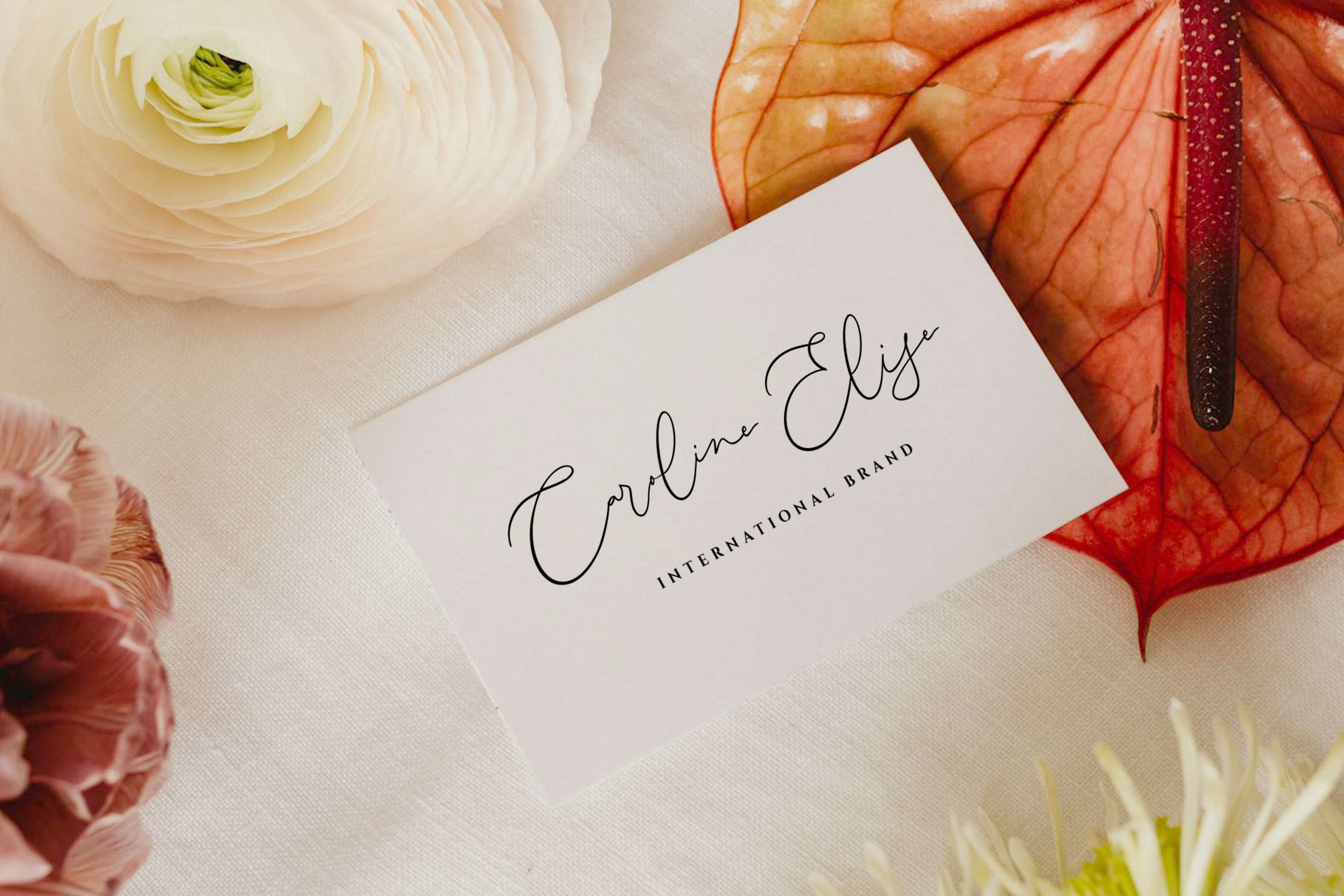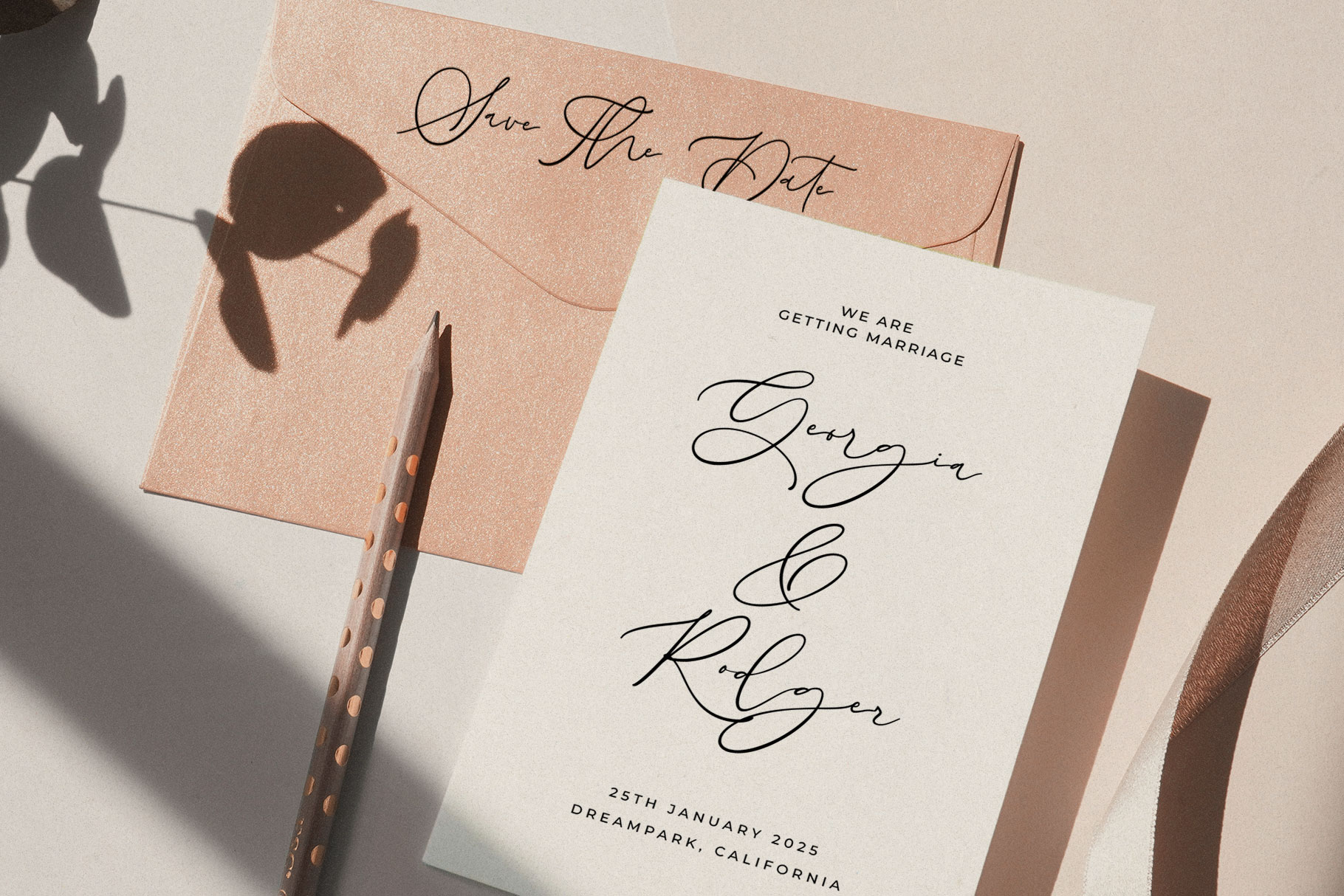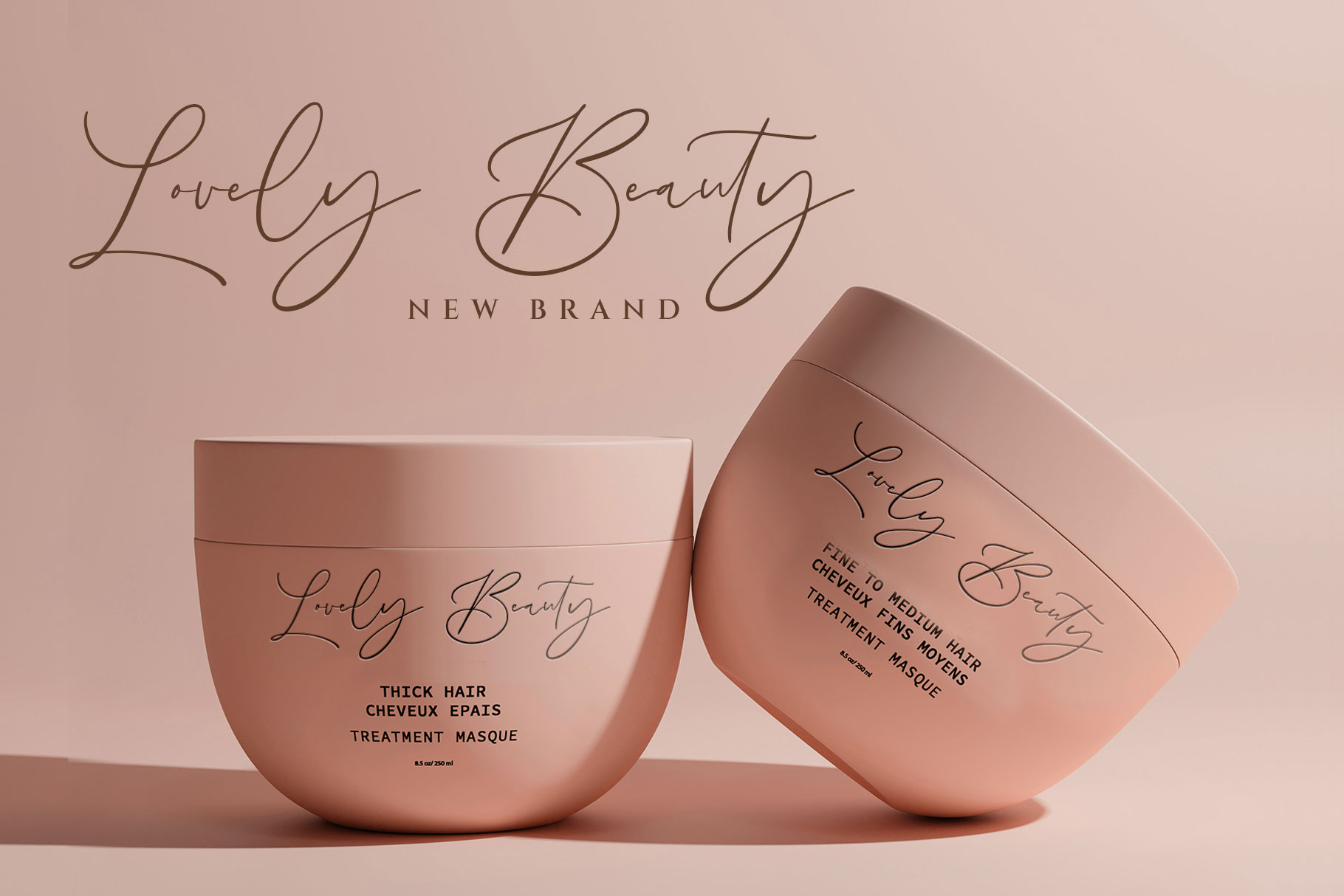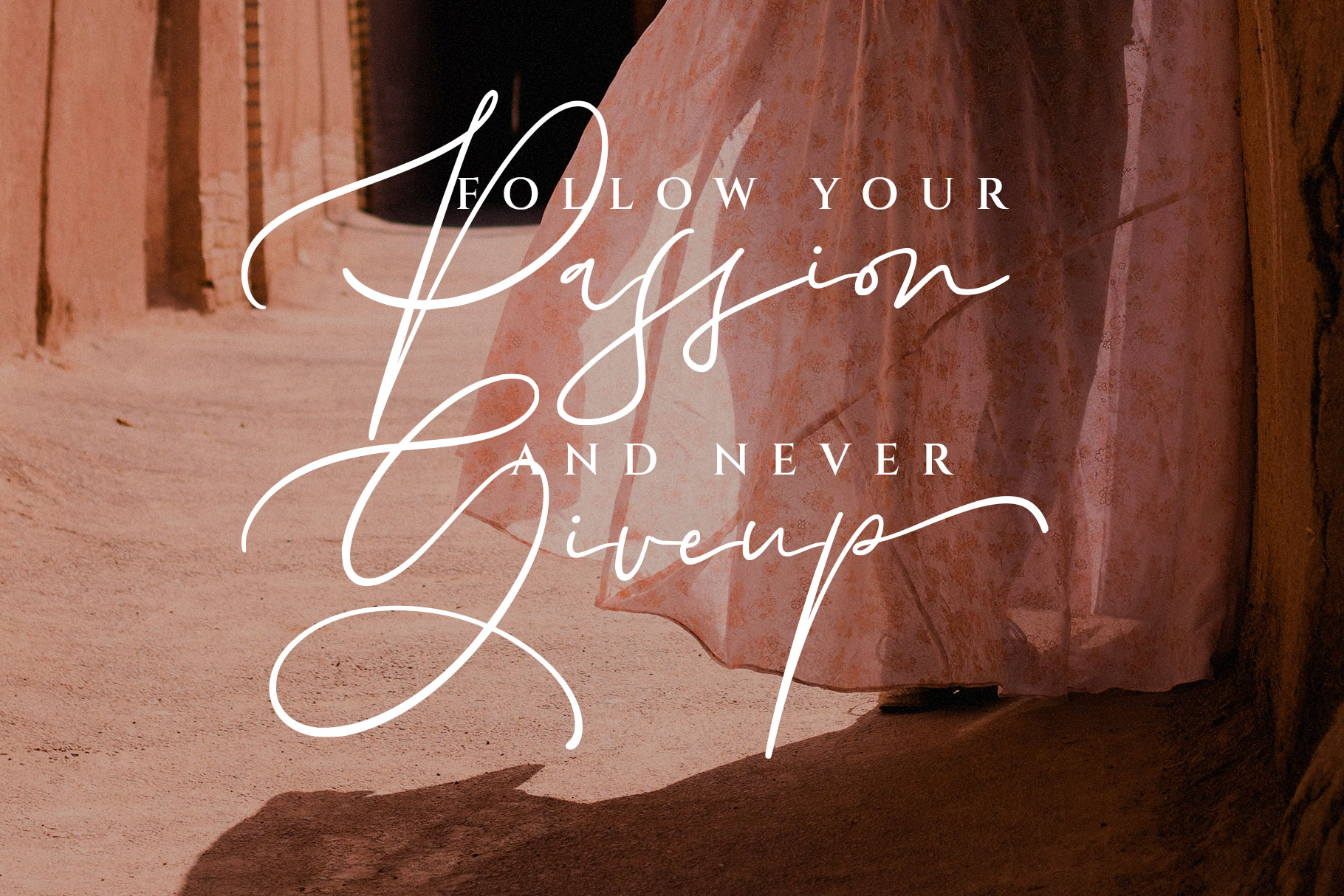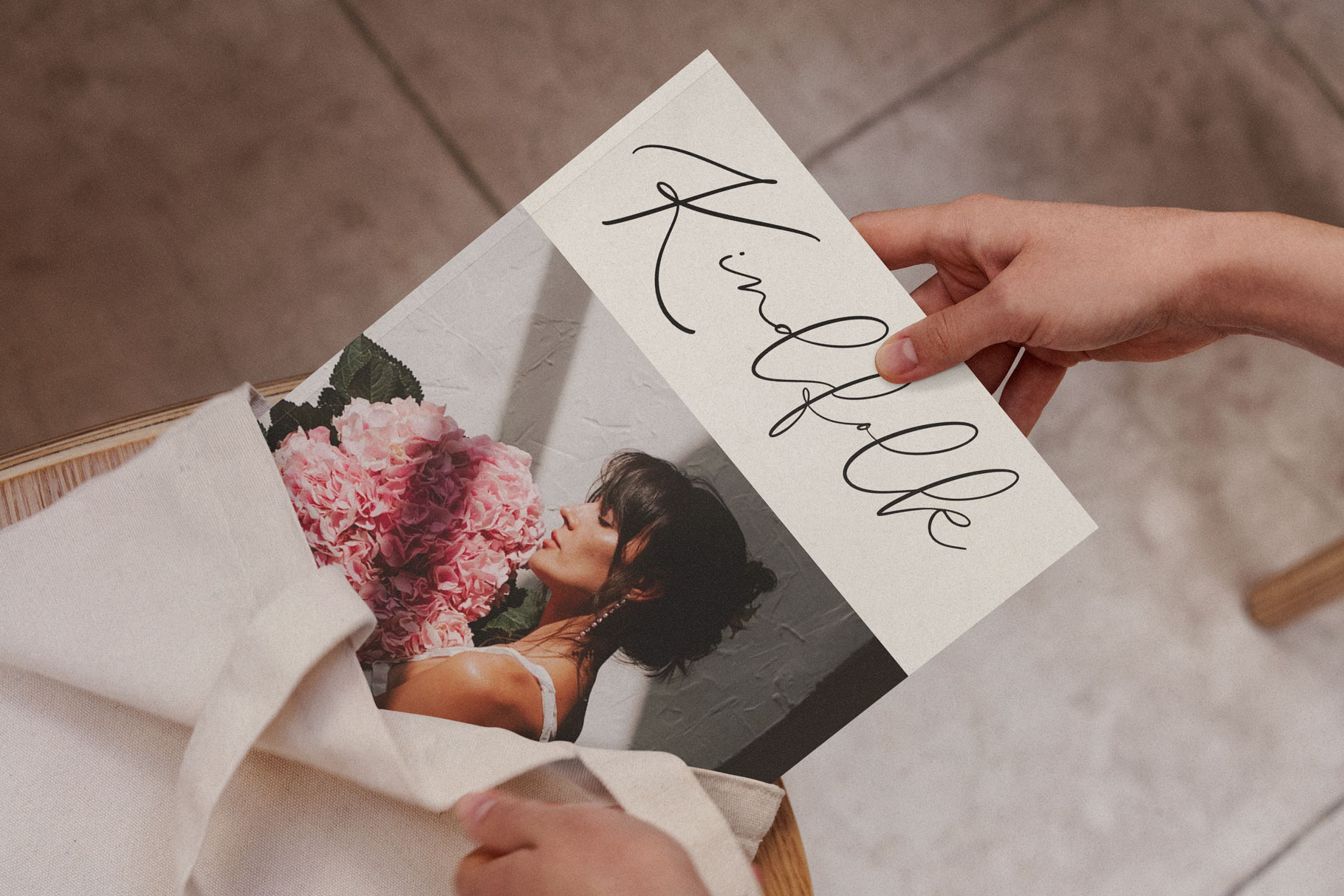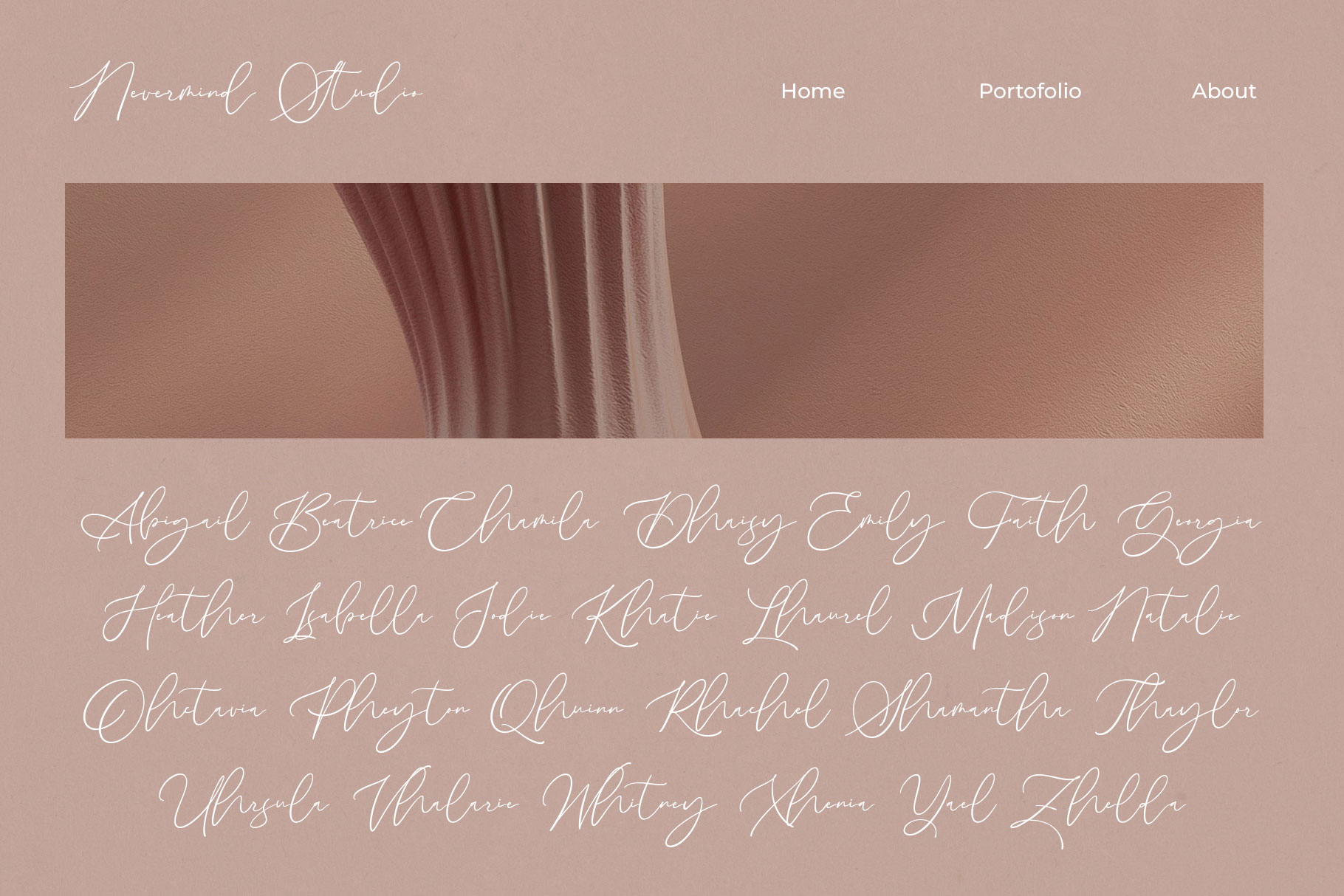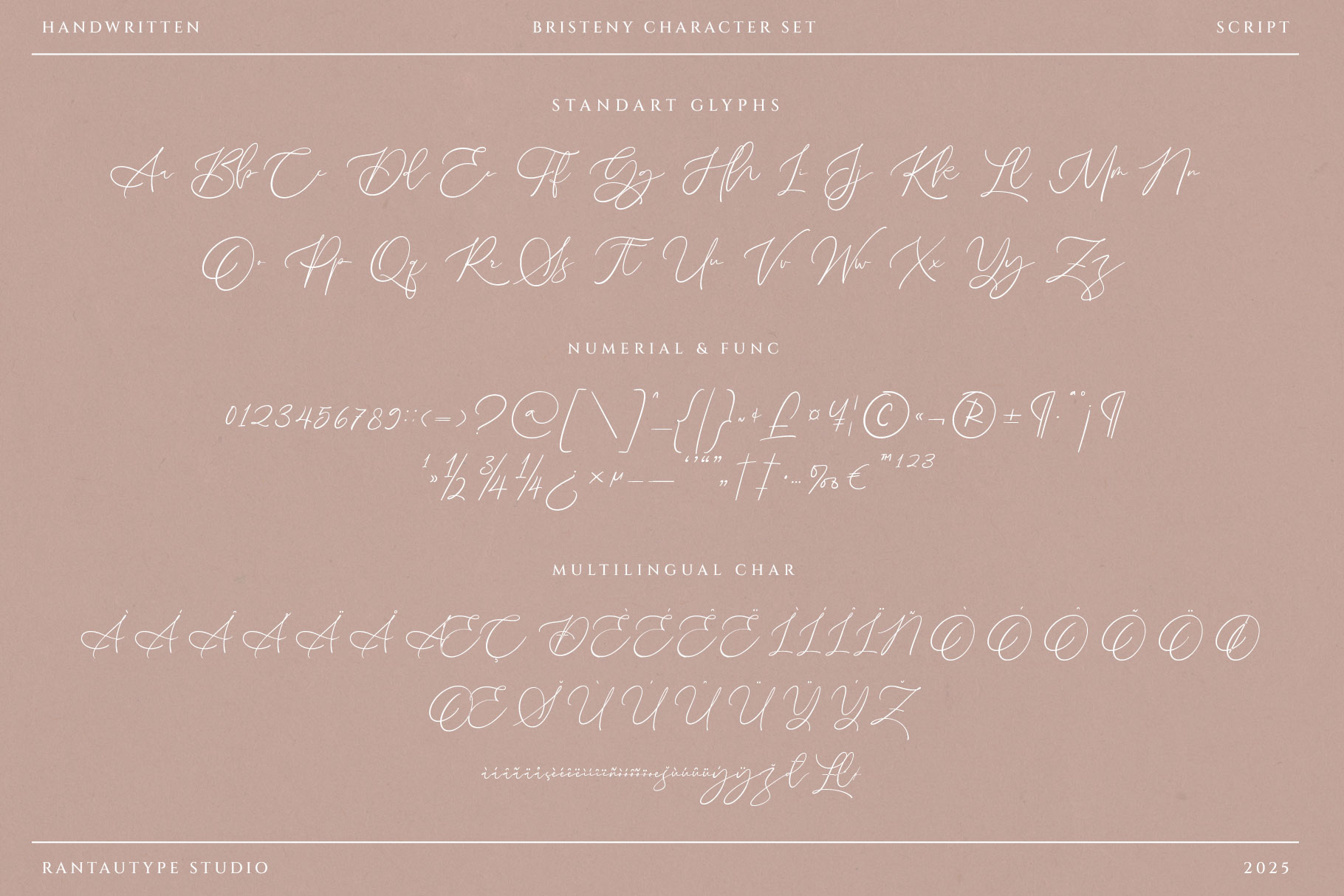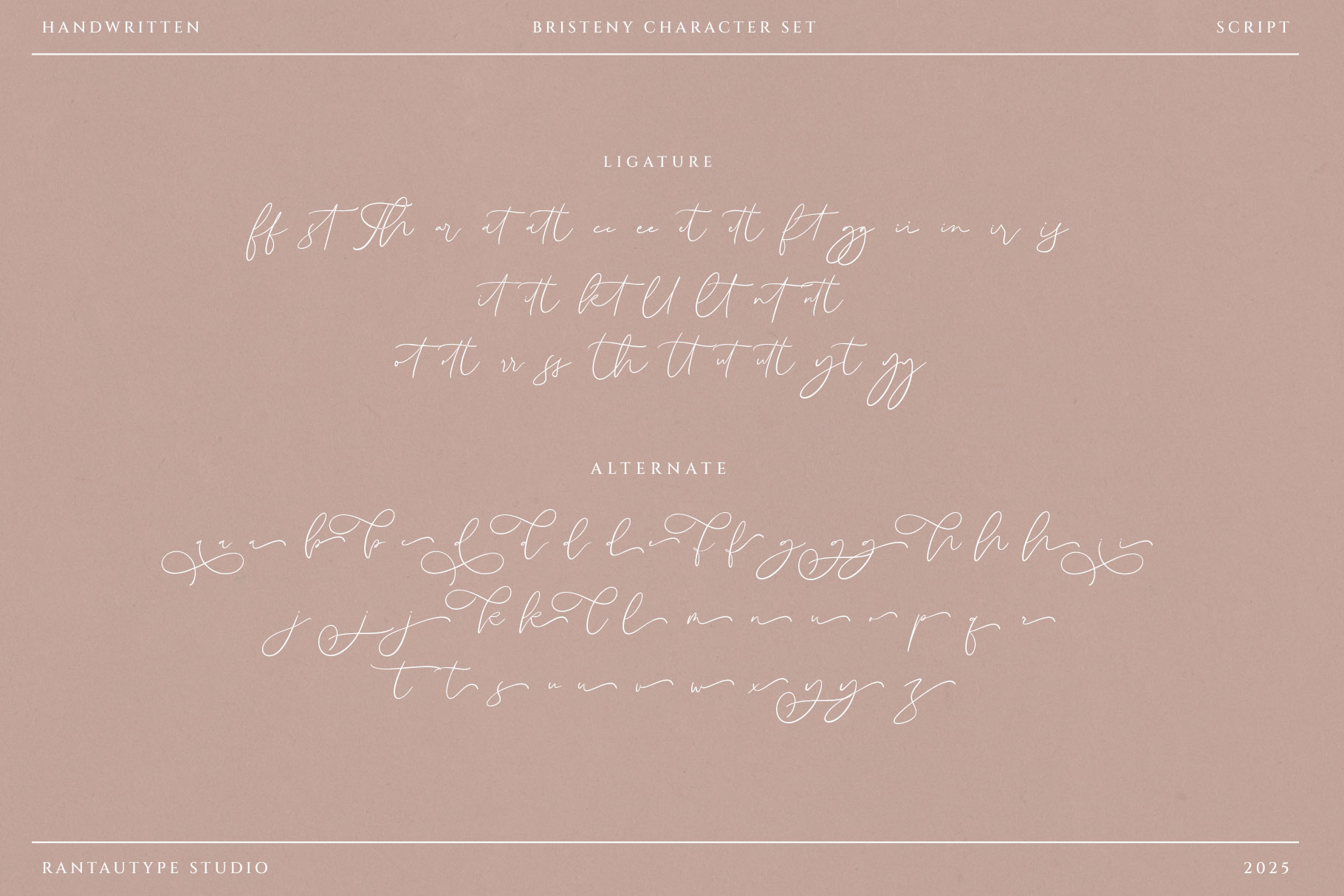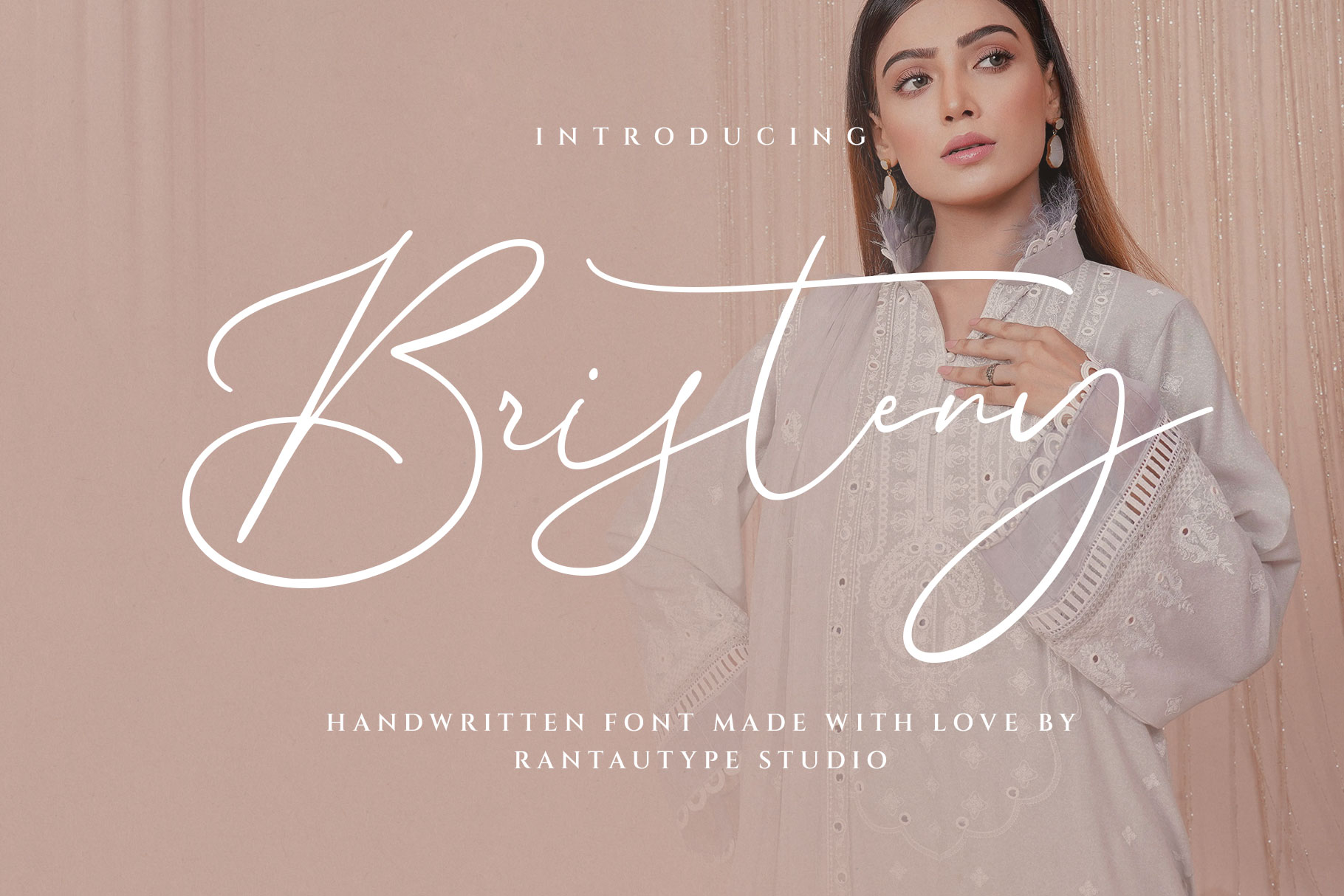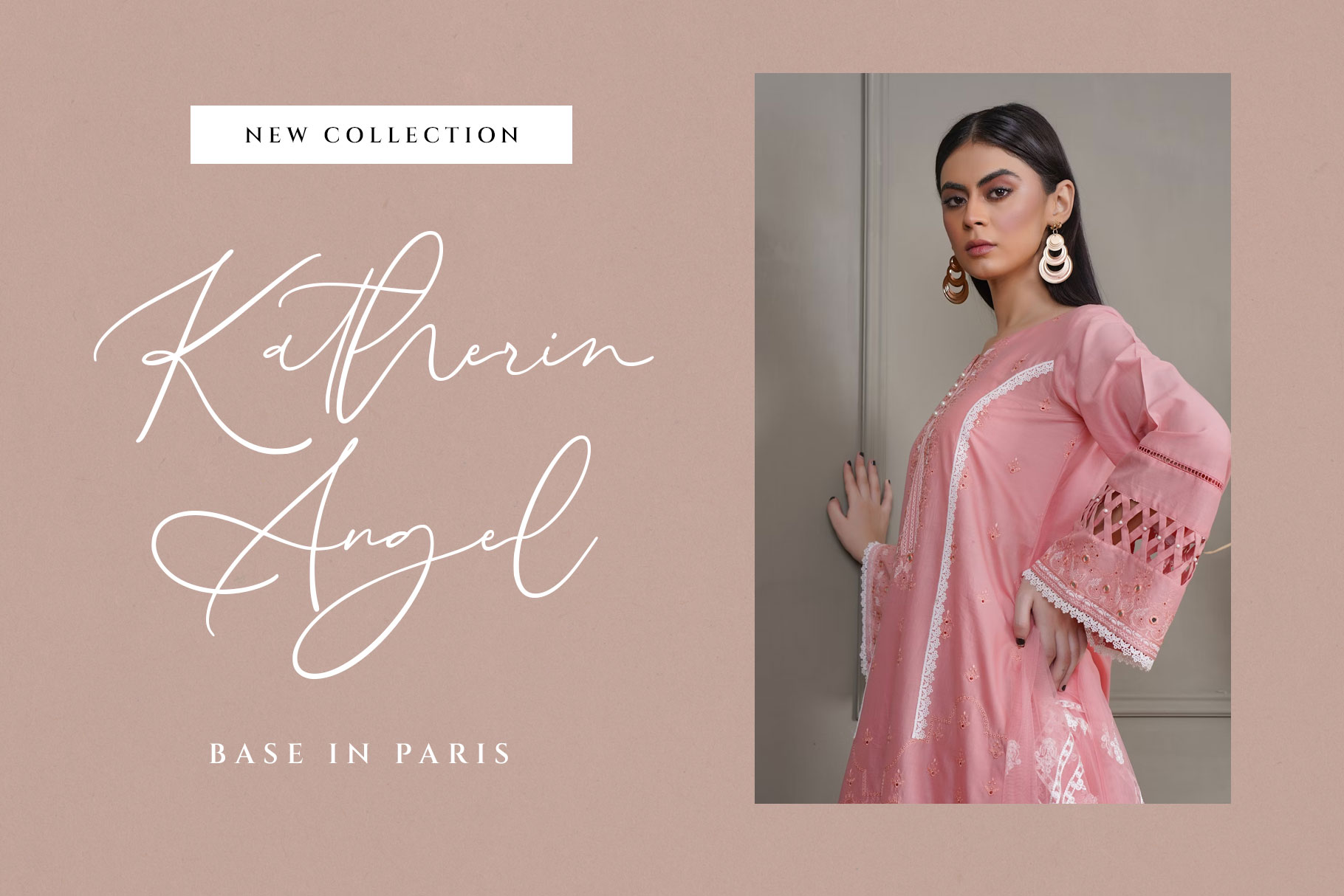
Bristeny Handwritten Font
Bristeny is handwritten font made with love and passion. Bristeny is a beautiful choice for any creative endeavor, creating, modern, chic, lifestyle design such as logotype, title, cover, branding, invitations, wedding designs, display and magazine, social media posts, advertisements, printed quotes, product packaging, corporate brand, product designs, labels, photography, watermarks, special events and any other project with handwritten touch.